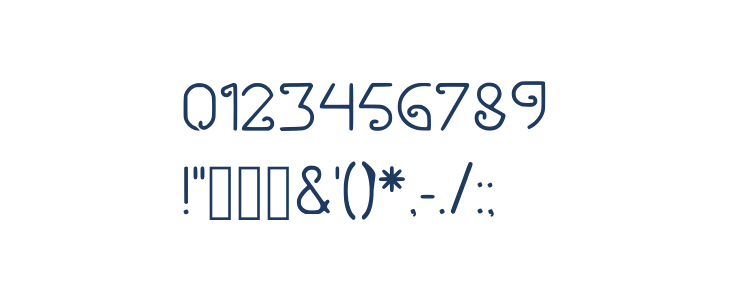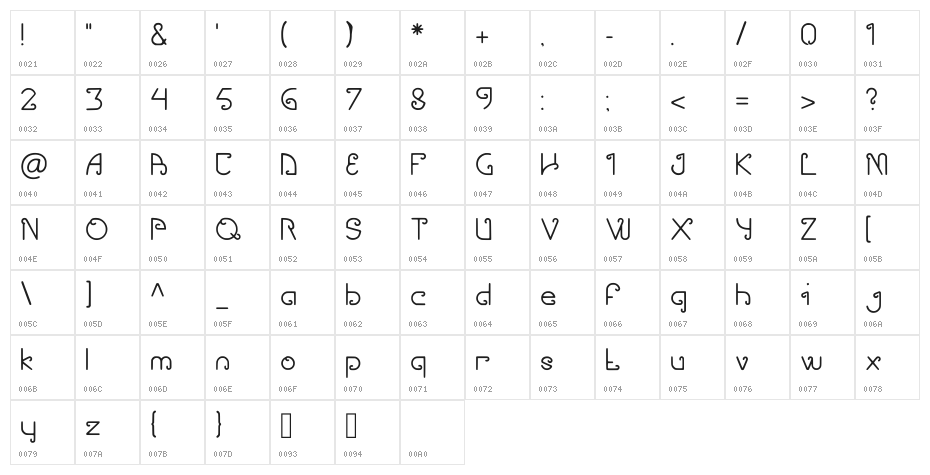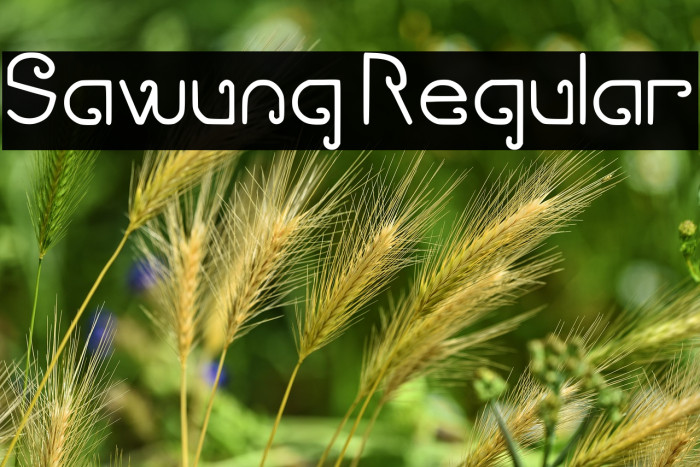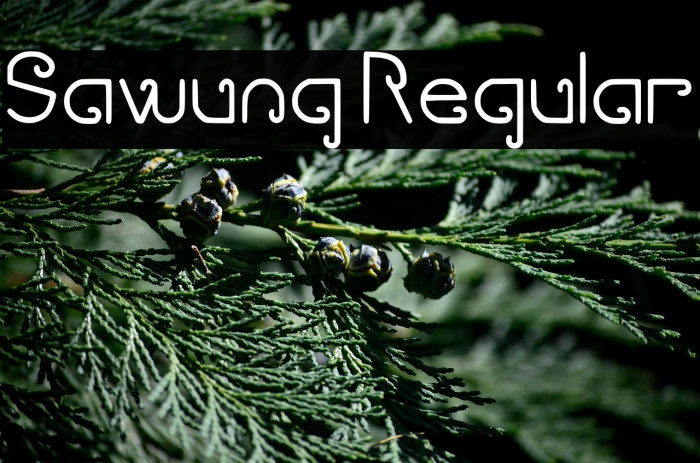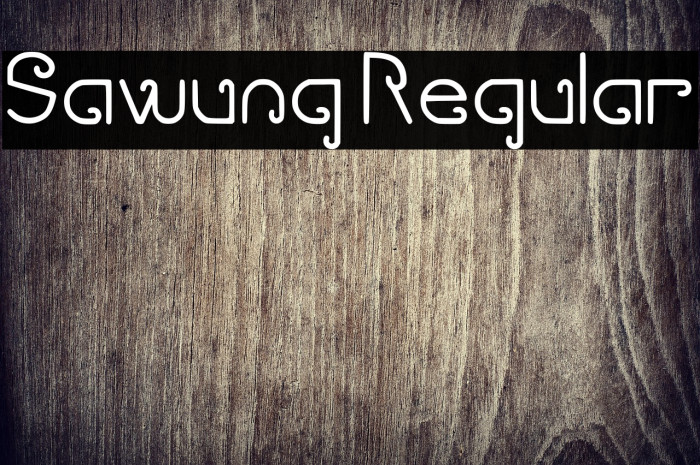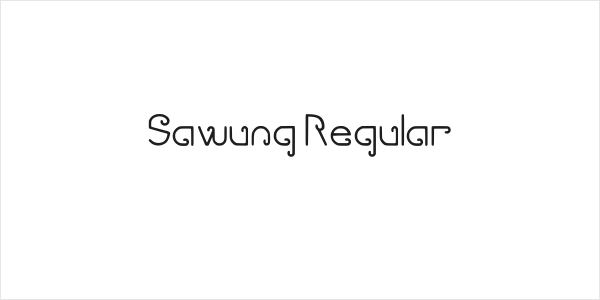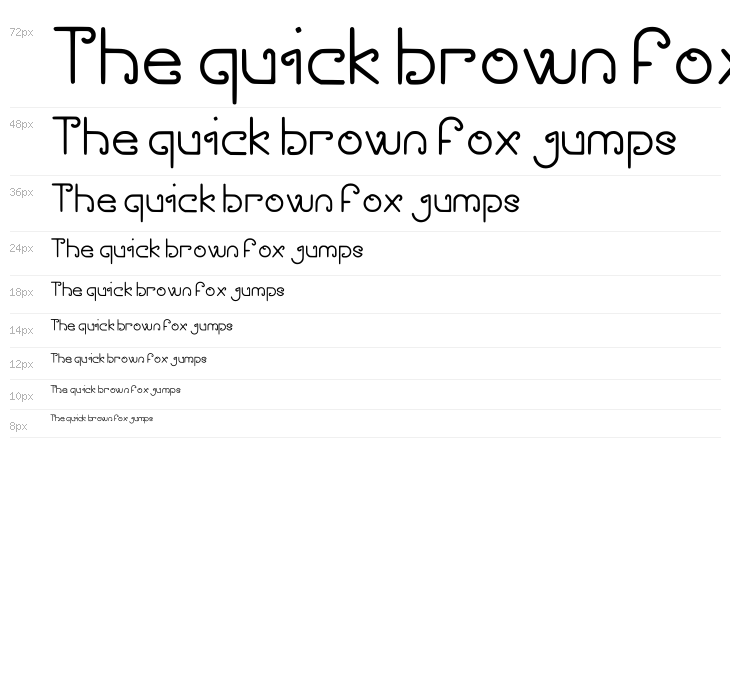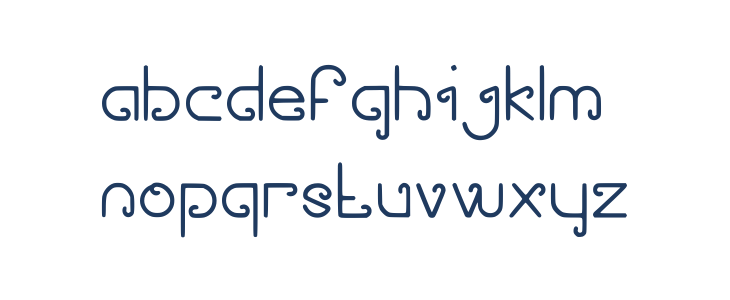
Sawung Regular Font
Sawung Regular Description
This font features a unique and playful design with rounded edges and a hand-drawn aesthetic. The characters are crafted with a consistent stroke width, giving it a cohesive look. The uppercase letters are bold and distinct, while the lowercase letters maintain a friendly and approachable style. Numbers and special characters are designed to match the overall playful theme, making it suitable for creative projects. The font's whimsical nature is enhanced by its slightly irregular shapes, adding a touch of personality and charm.